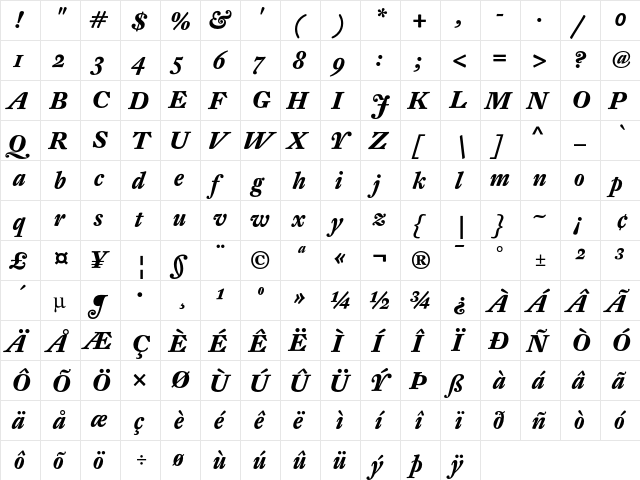
DTL Fleischmann ST Bold Italic Font Preview
Design Context for DTL Fleischmann Typeface
DTL Fleischmann offers clean, dependable letterforms without strong stylistic allegiance, making it a practical choice for designers who need flexibility. The dynamic lean of this cut emphasises speed and emphasis in any layout. The heavy weight commands attention and anchors typographic hierarchies.
Pro Tip: Try DTL Fleischmann for annotation and caption copy alongside an upright companion — the contrast in angle creates a dynamic but ordered typographic system.